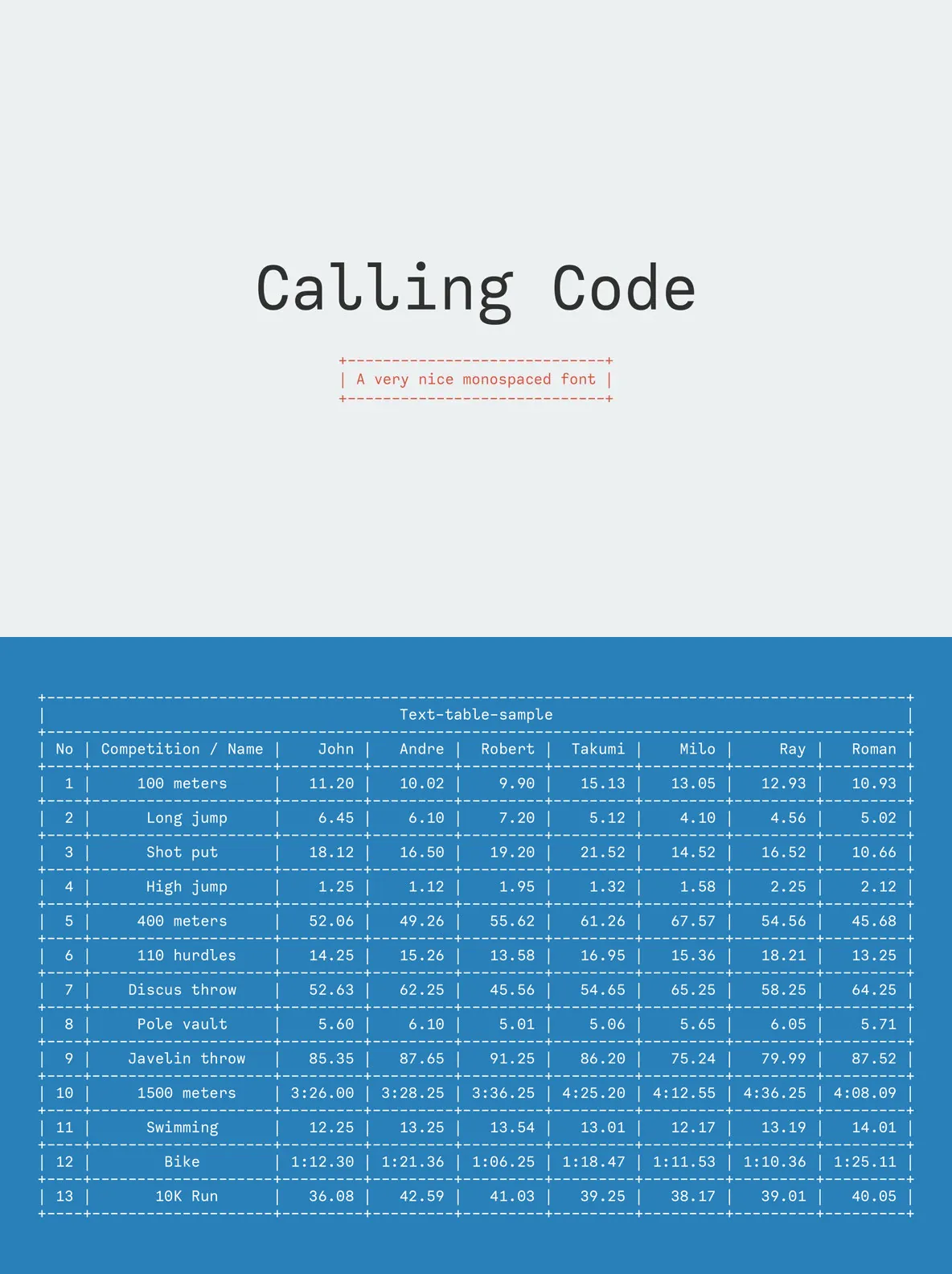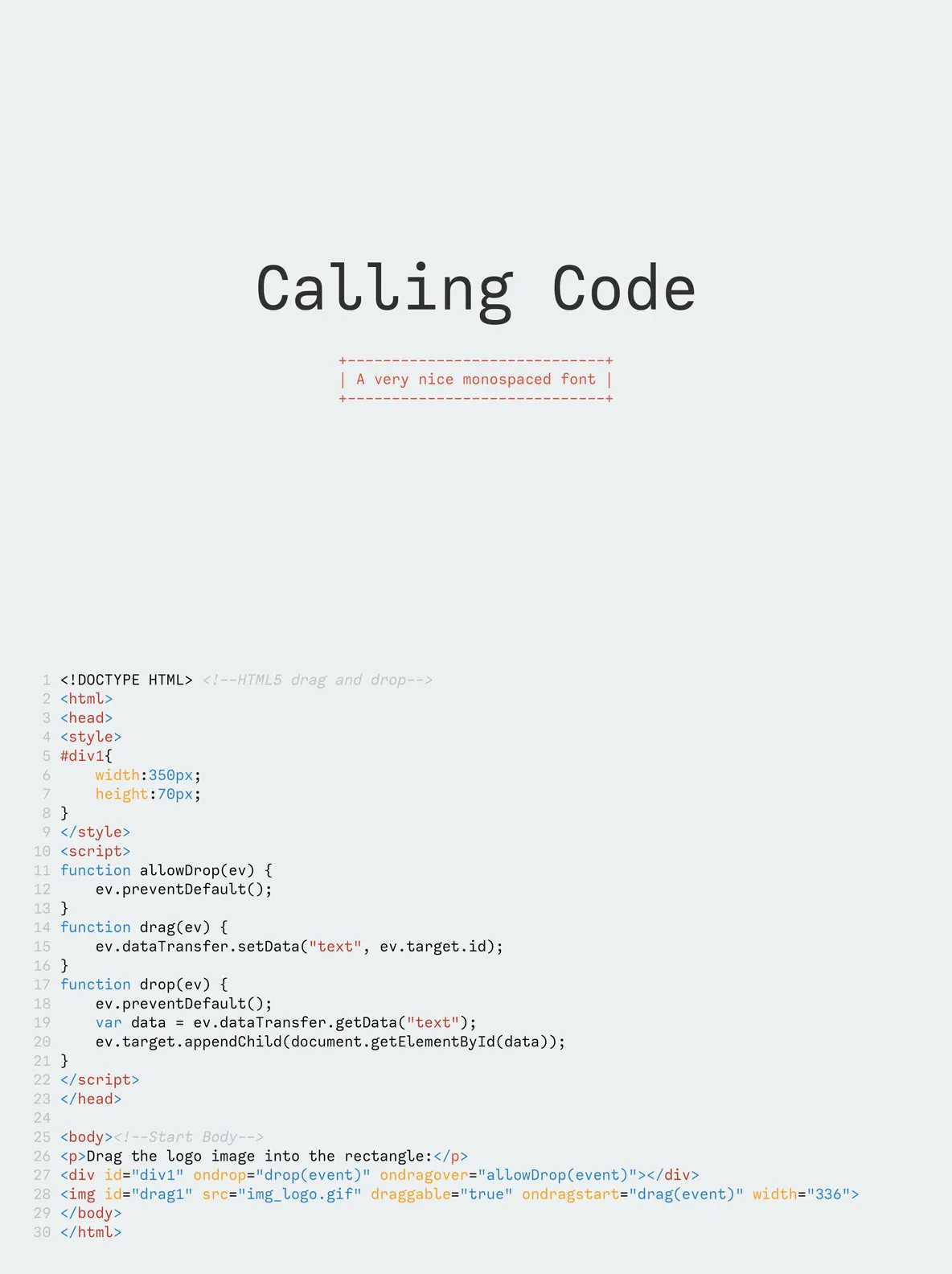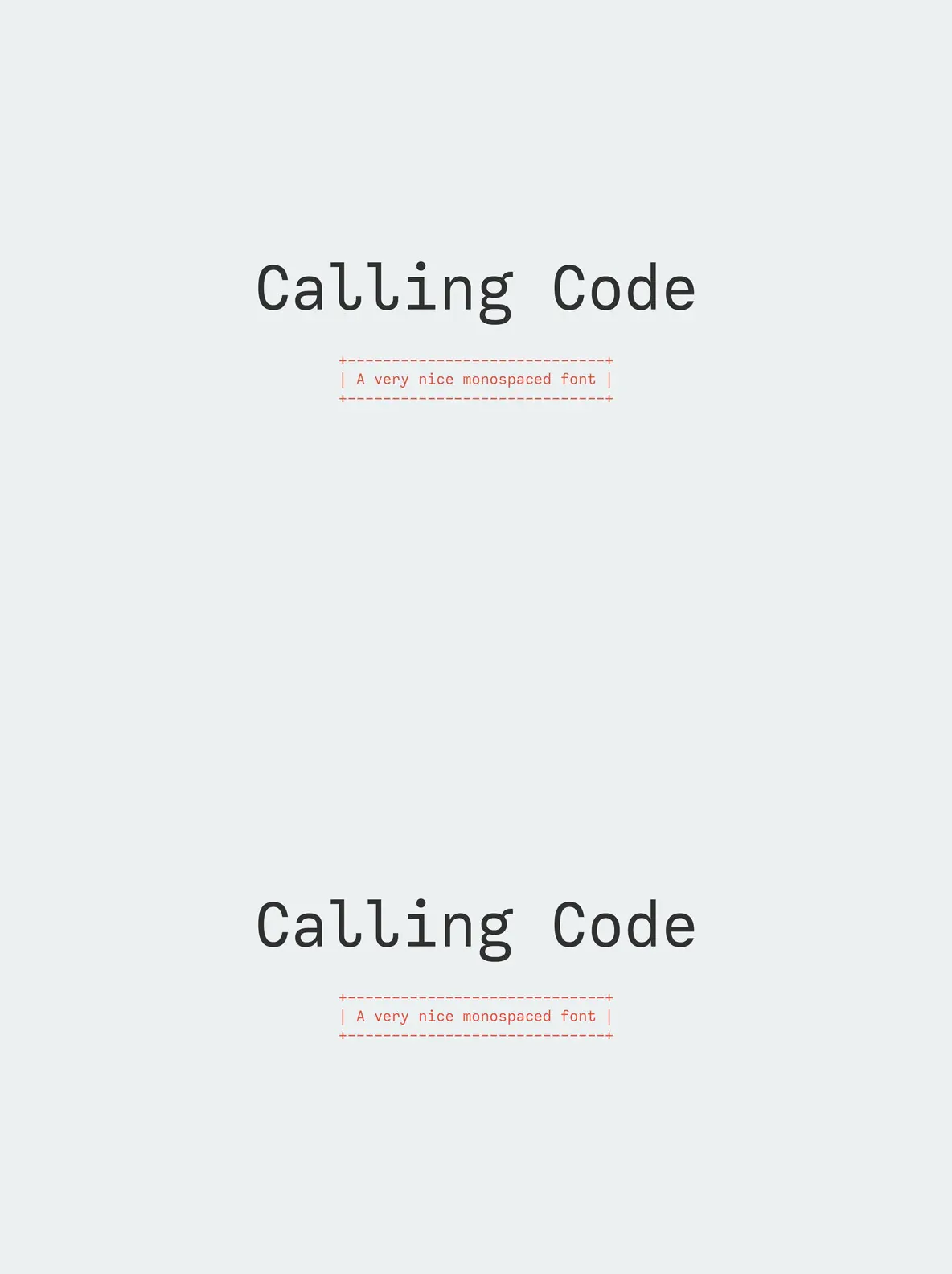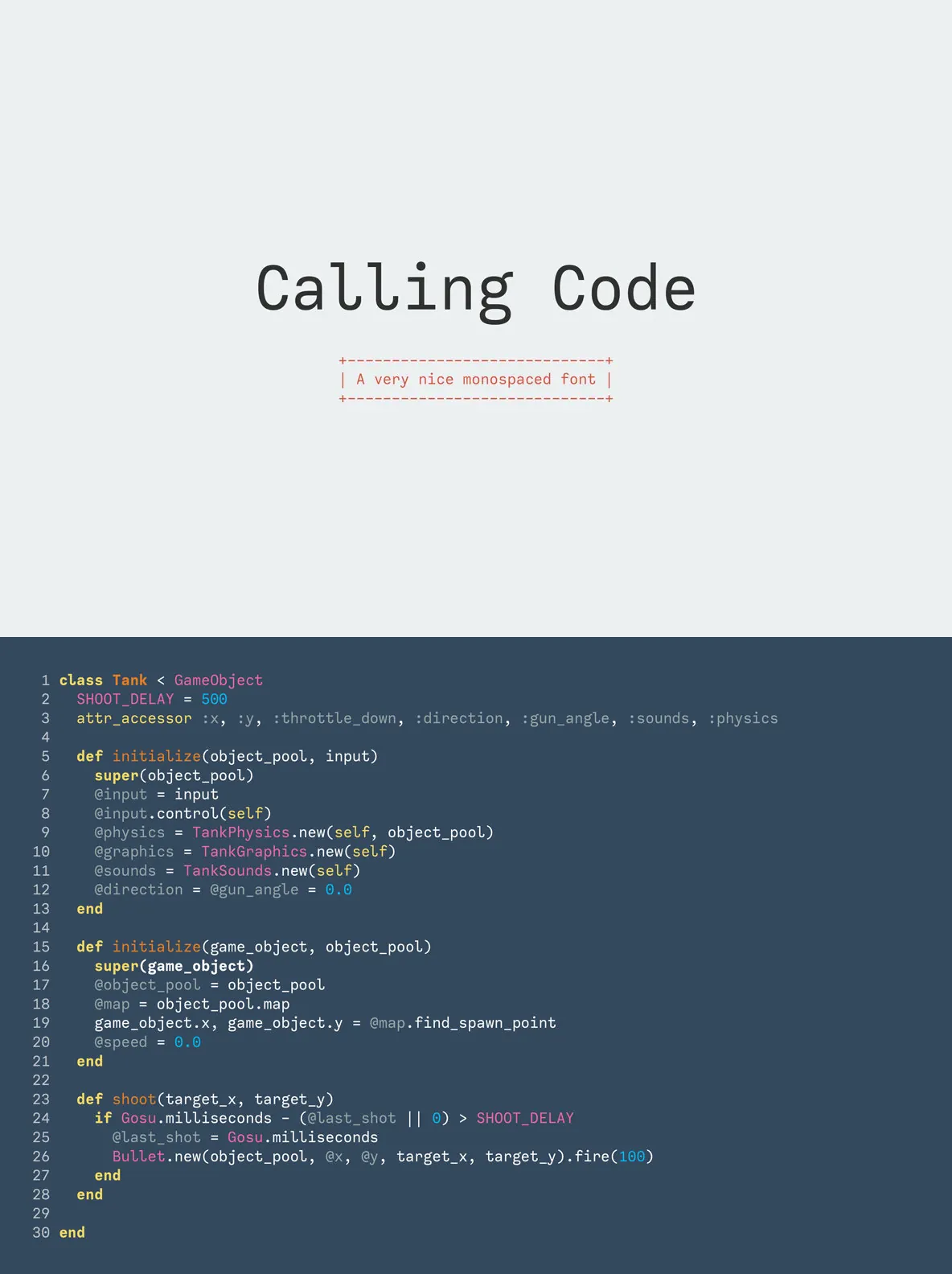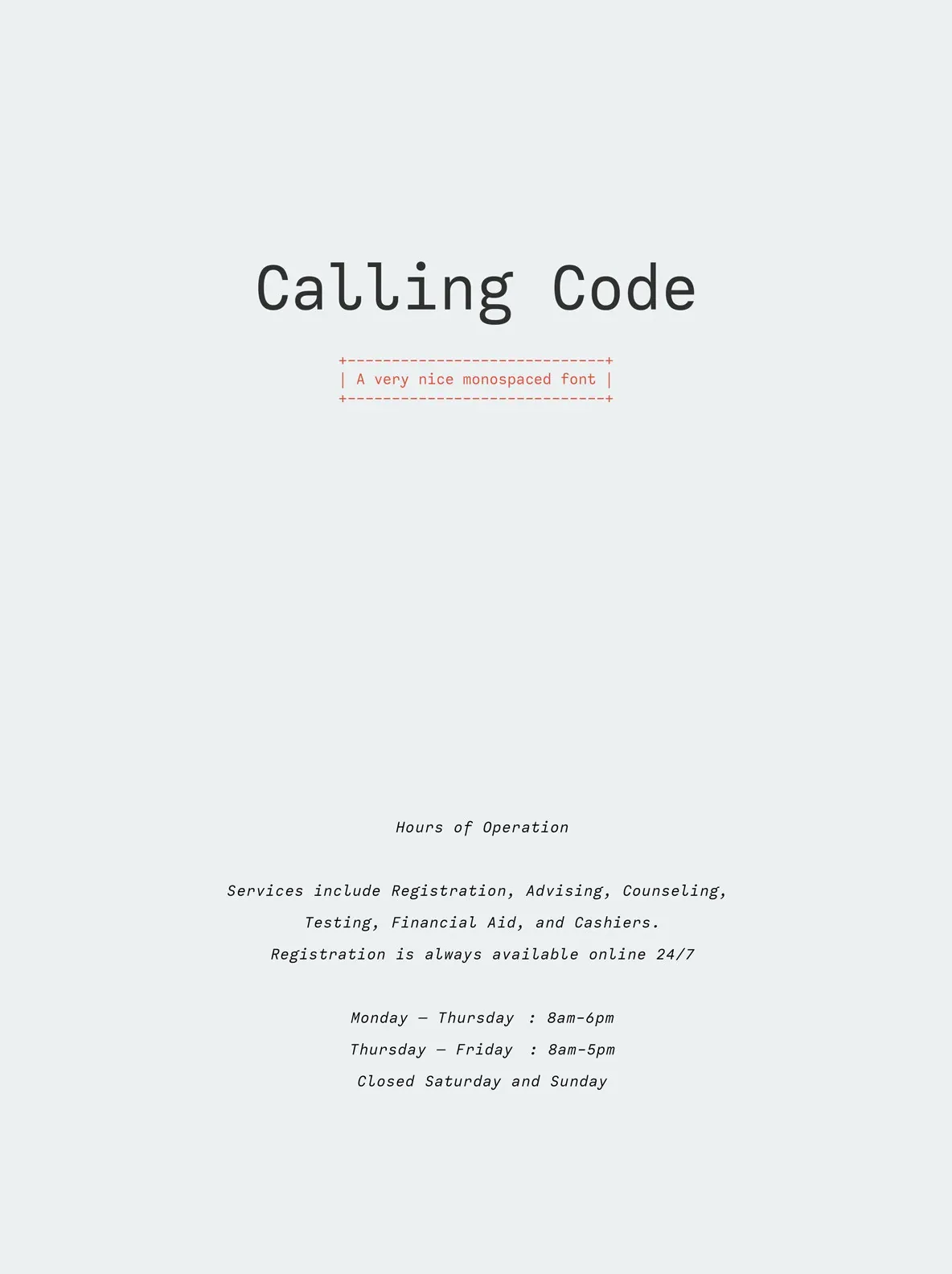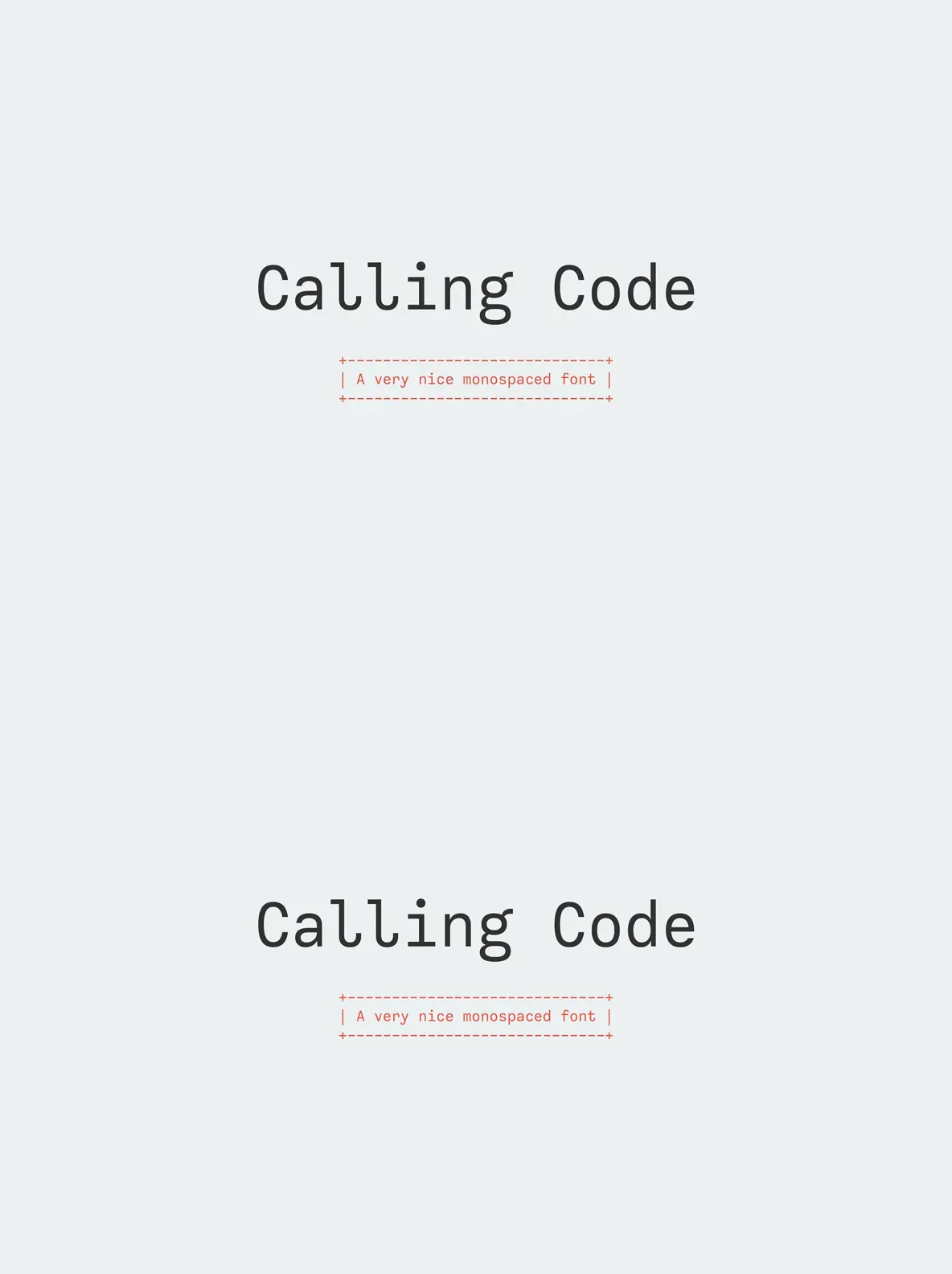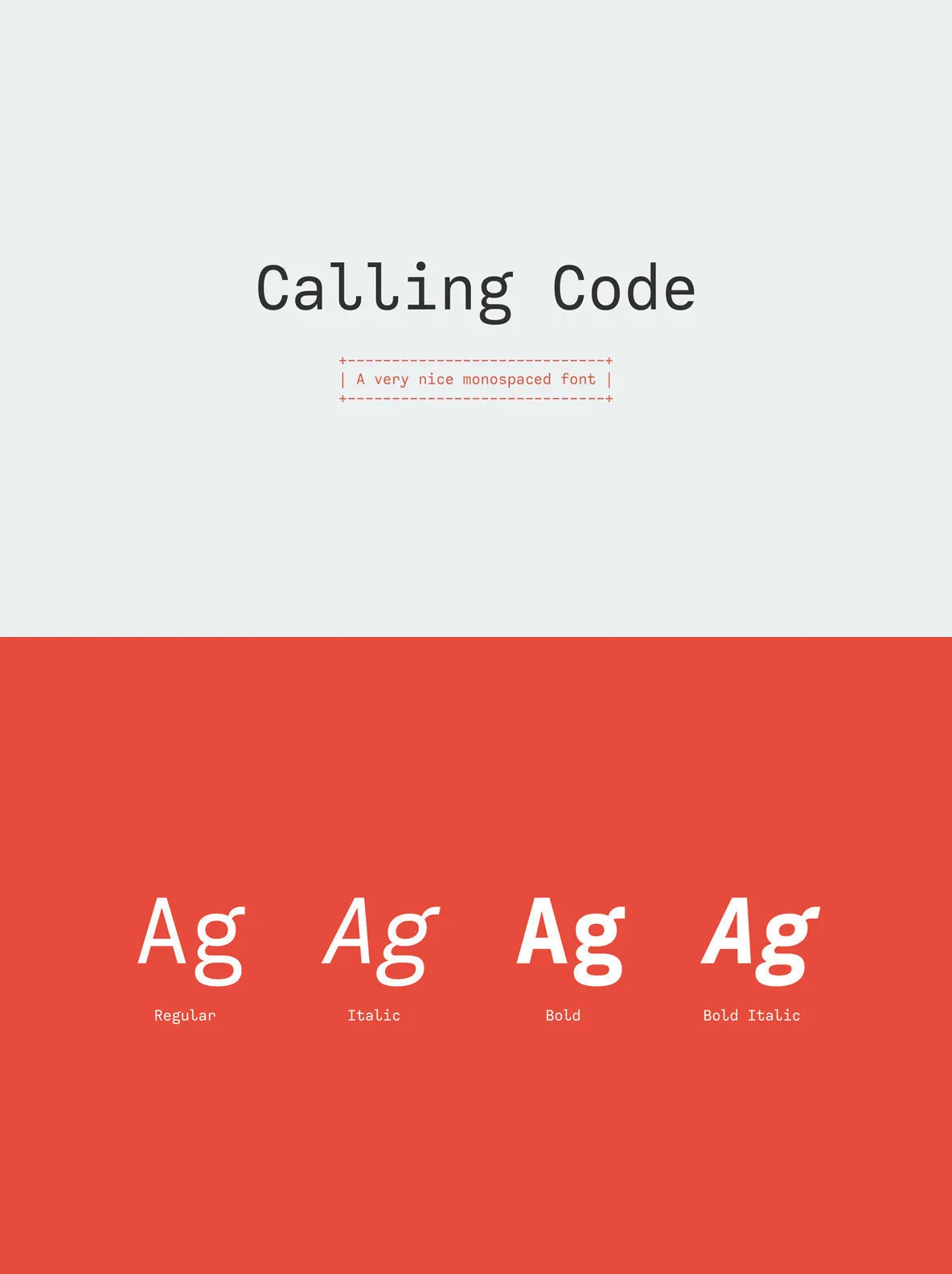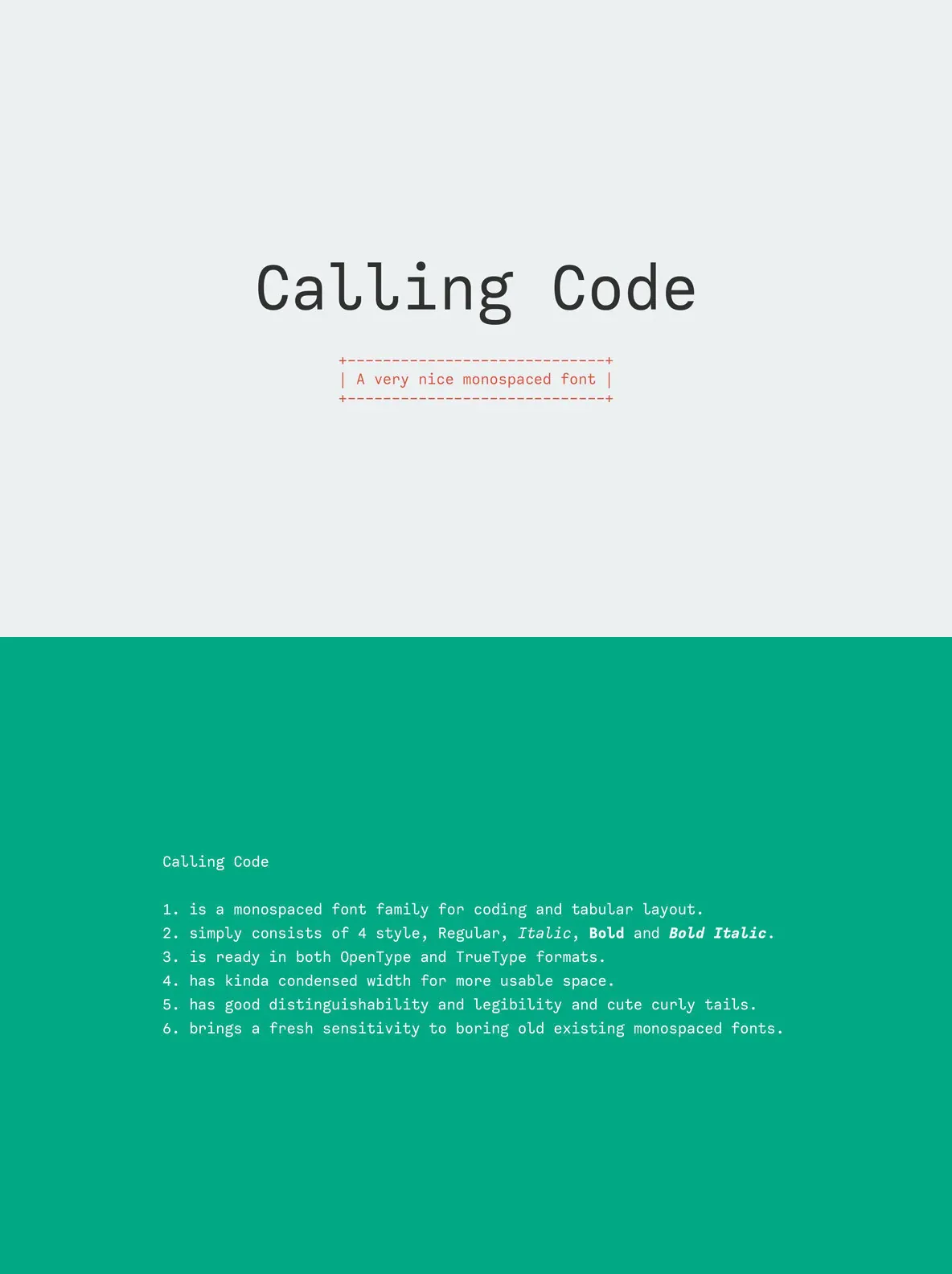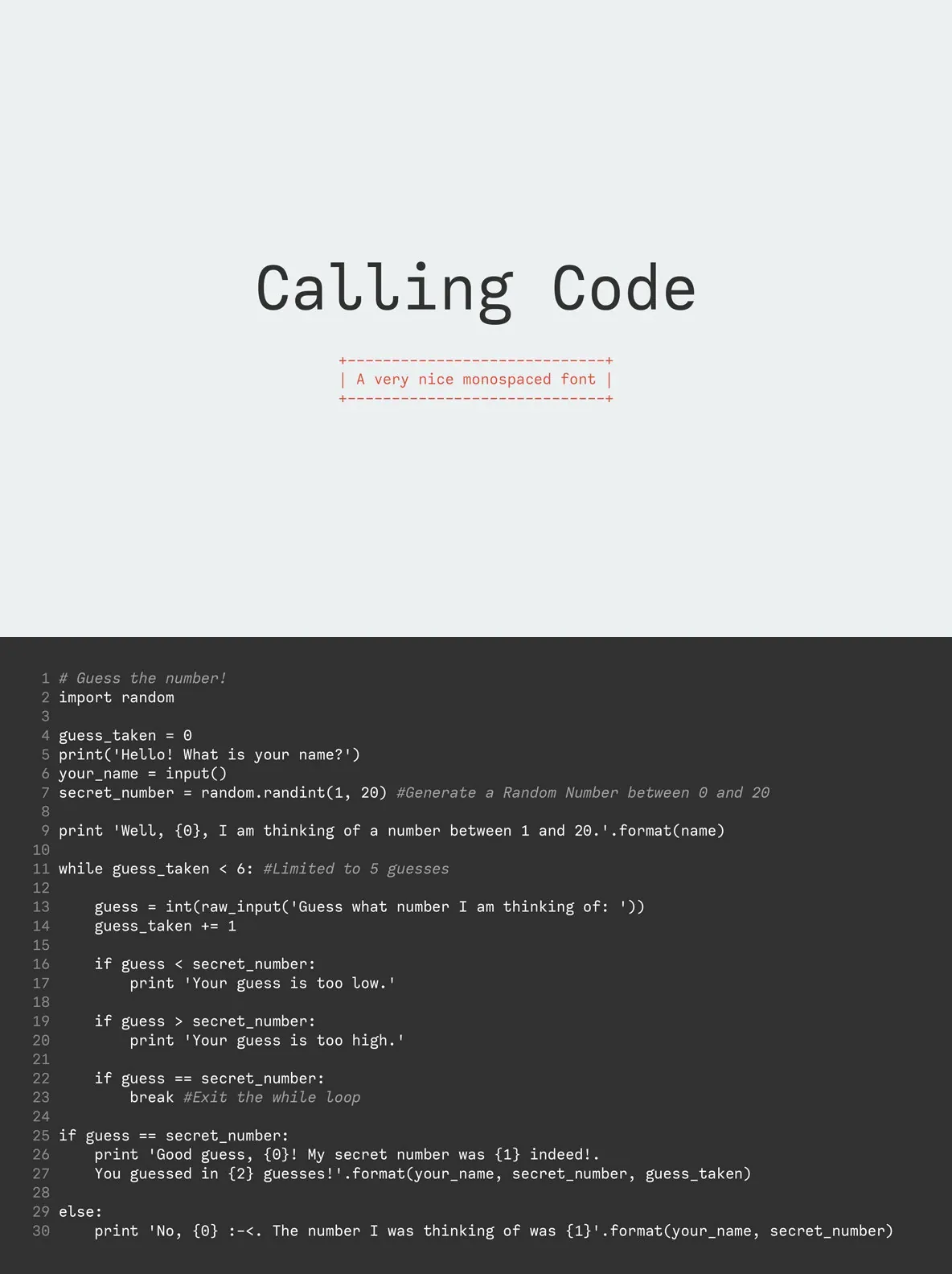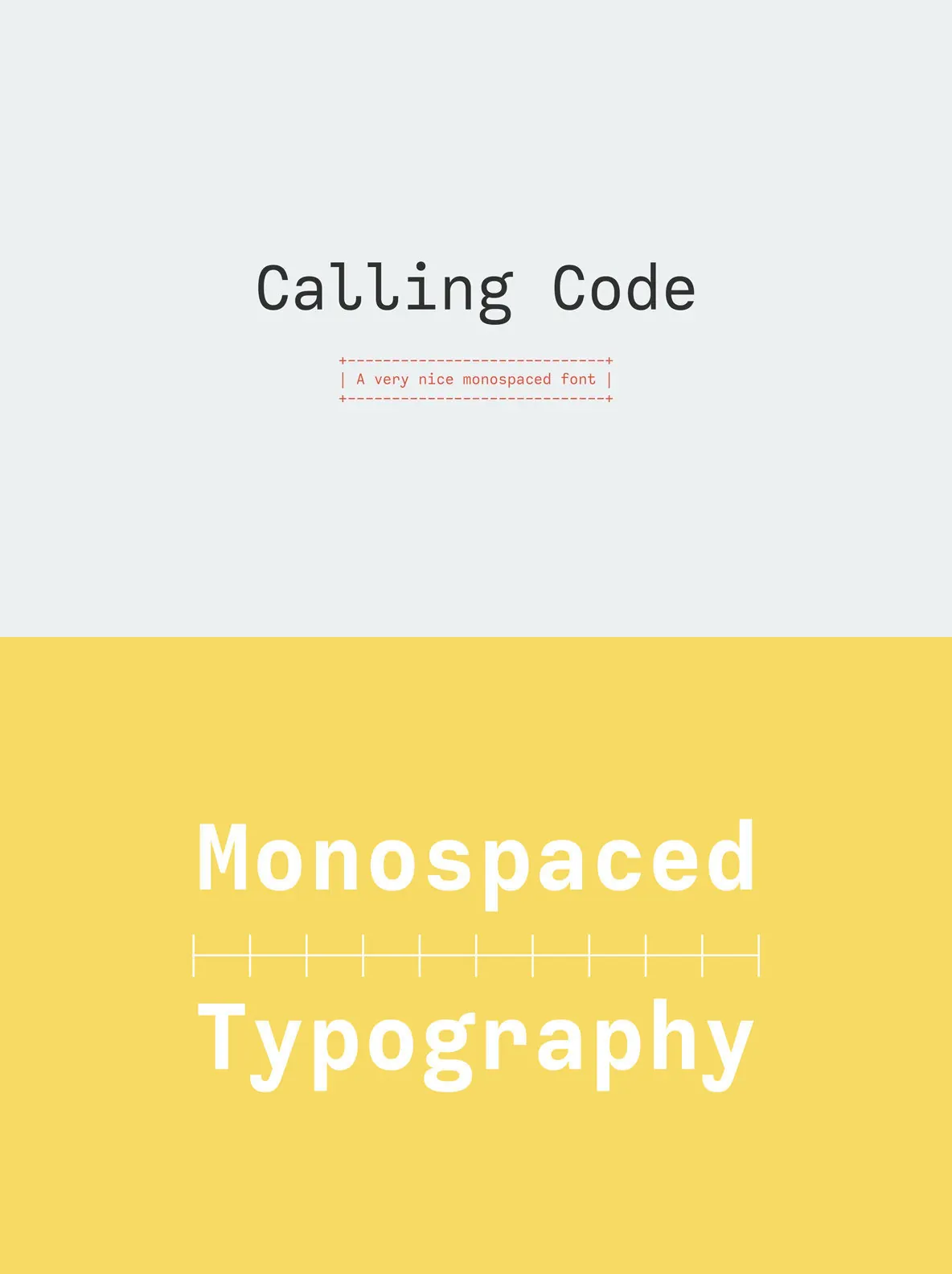
Calling Code: Modern Monospace Font for Coding and Design
Calling Code is a thoughtfully constructed monospace font family, tailored for both developers and designers who value clarity and precision. This typeface integrates a clean, efficient structure that supports detailed coding workflows and tabular layouts. Its slightly condensed silhouette maximizes screen real estate, while its charming curly tails and clear letterforms ensure unmistakable visual distinction among characters—a trait essential for programming environments.
Whether used in code editors, technical documents, or contemporary design applications, Calling Code maintains both functionality and aesthetic appeal. The range of four styles—Regular, Italic, Bold, and Bold Italic—offers flexibility for diverse typographic hierarchies. The Regular style trial version allows for practical testing, giving users firsthand experience with its crisp execution and modern sensibility. As a fresh alternative to traditional coding fonts, Calling Code stands out for those pursuing efficiency without sacrificing design integrity.
Four styles: Regular, Italic, Bold, and Bold Italic
Slightly condensed design for optimized space
Distinct character shapes for improved legibility
Curly tails add subtle character
Ideal for code, tabular data, and clean layouts
Modern update on classic monospaced aesthetics